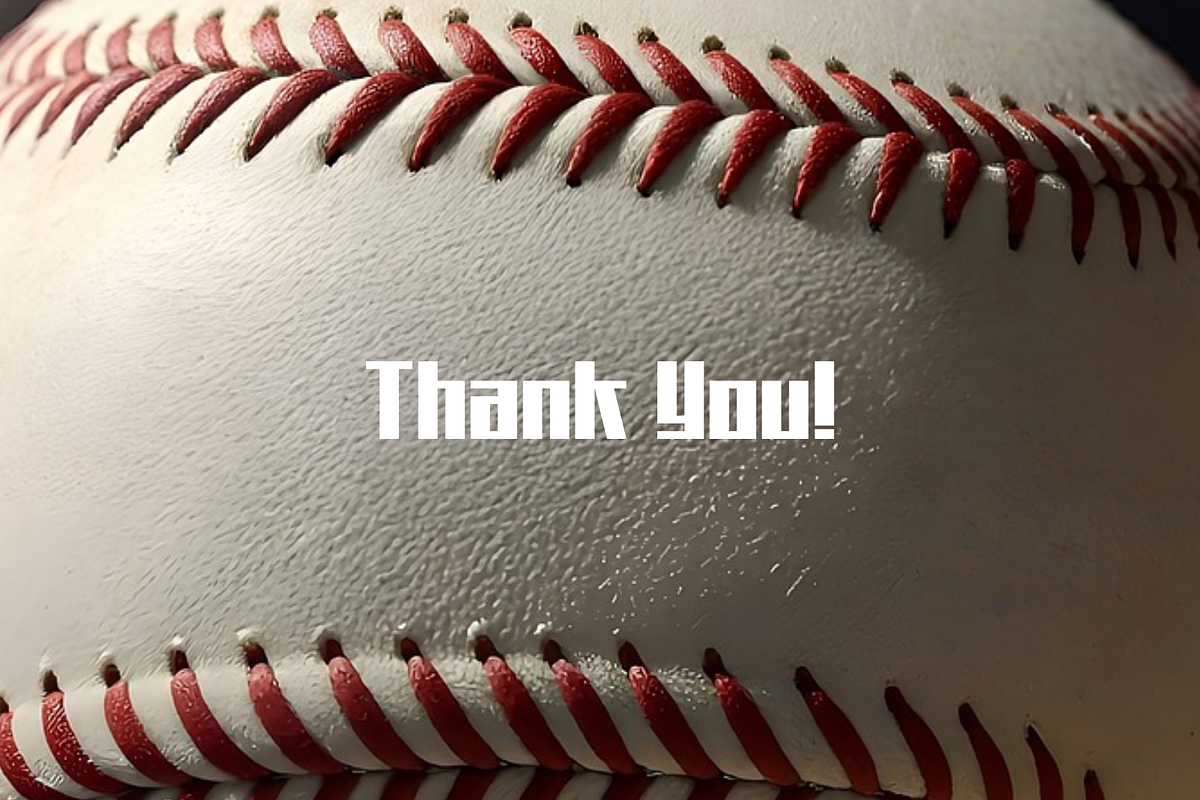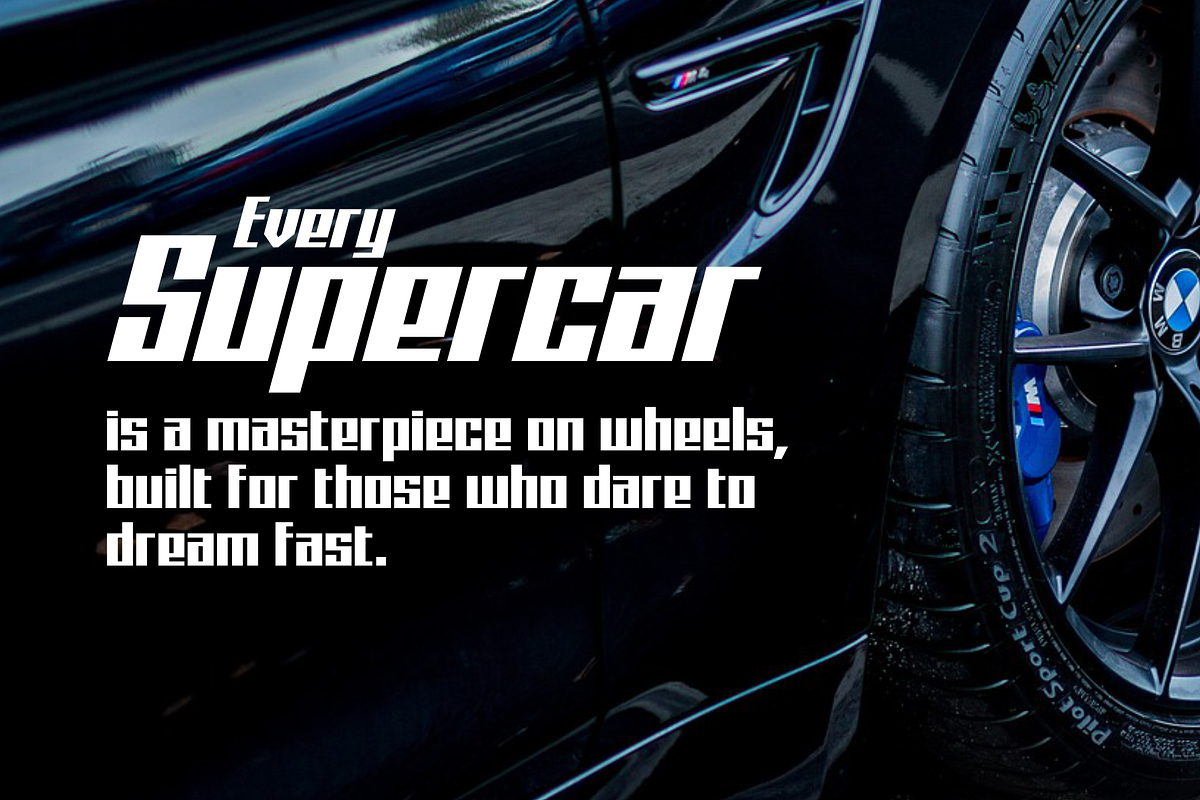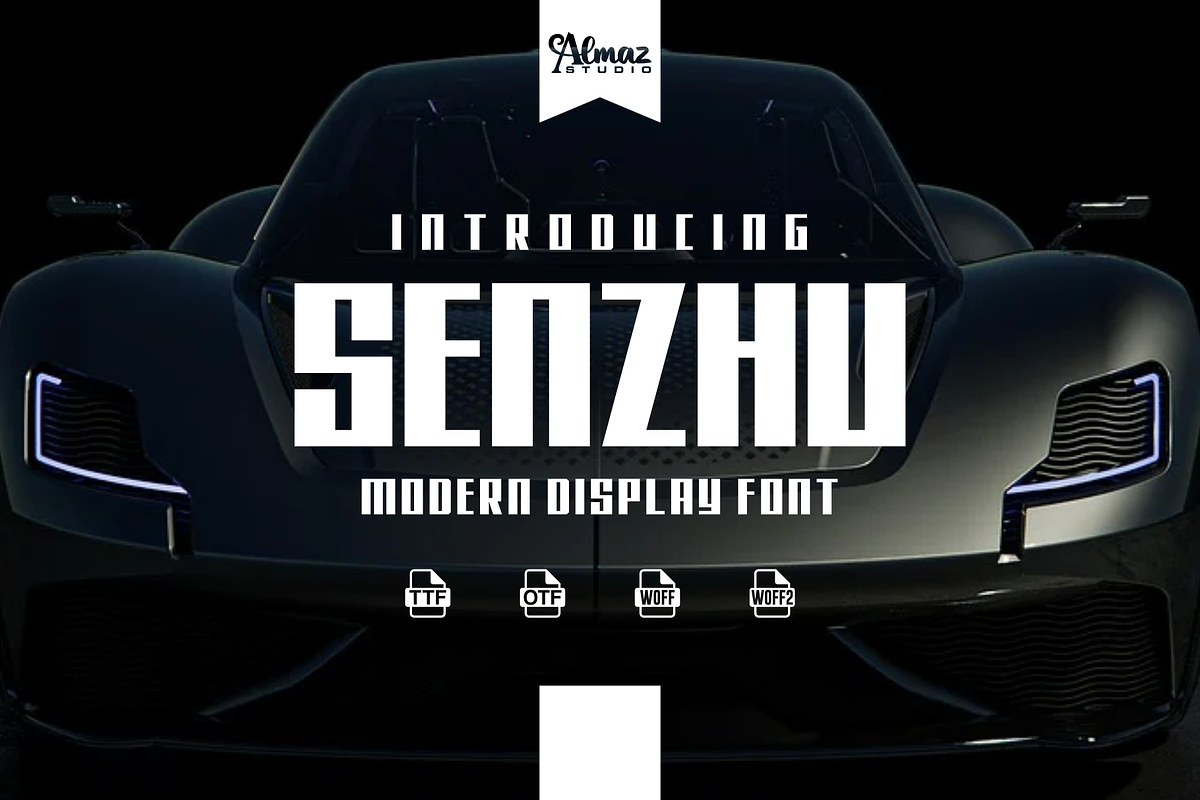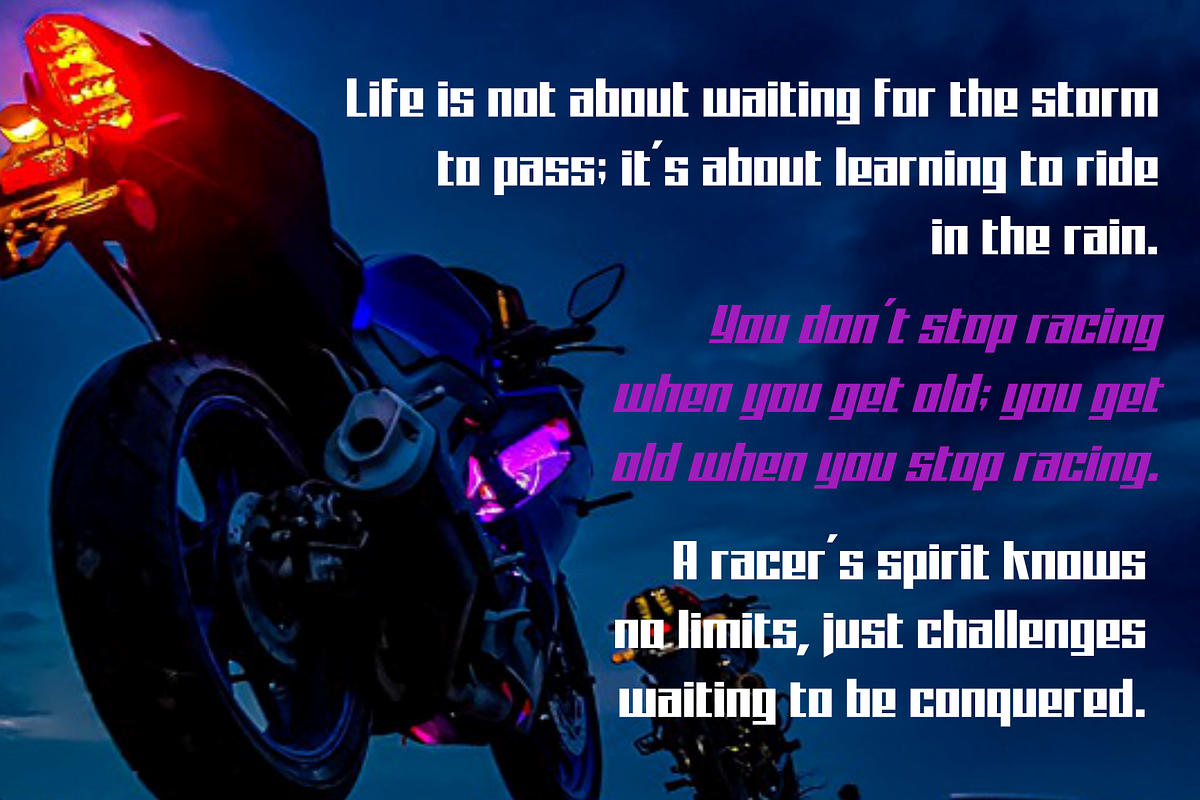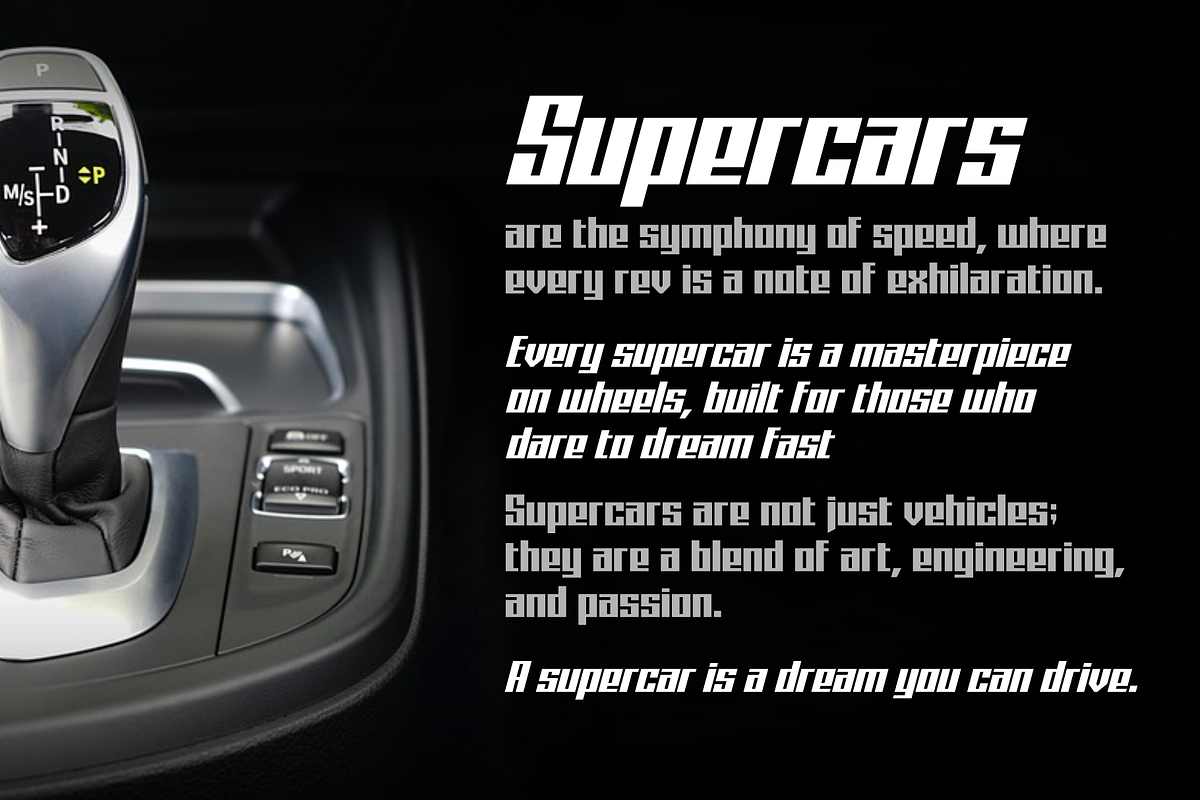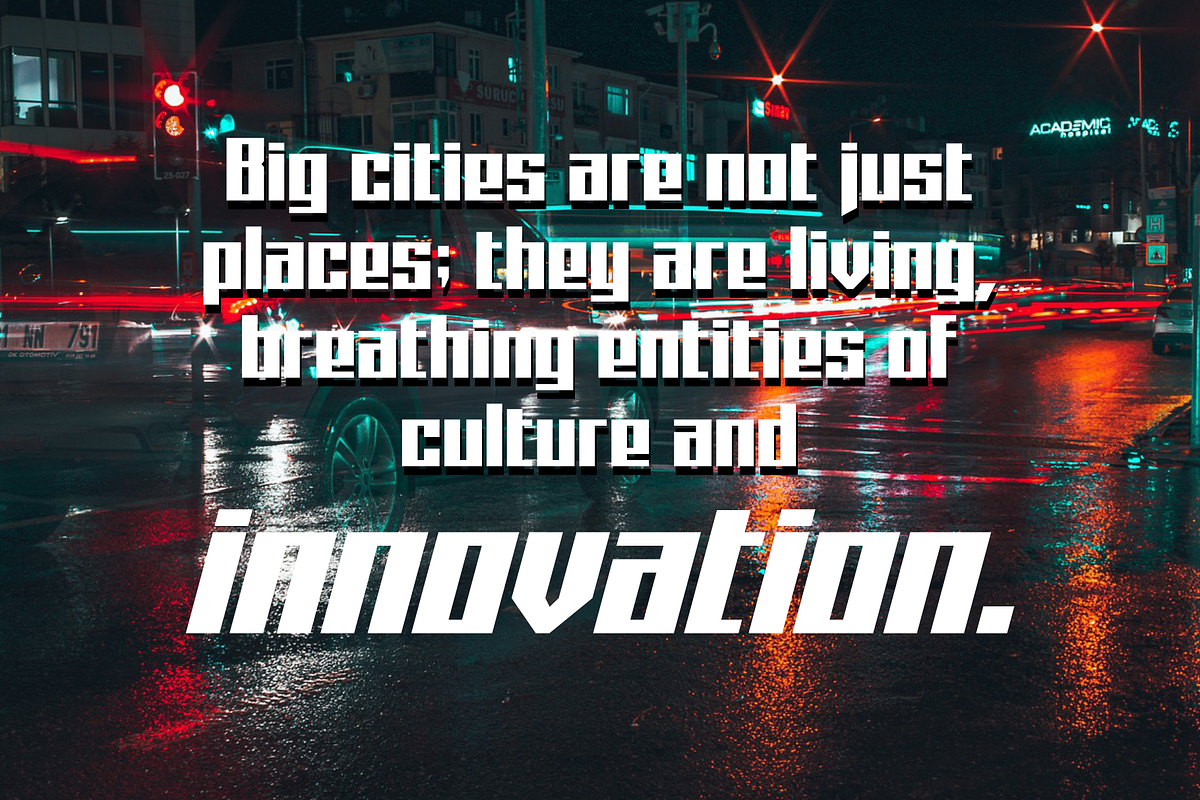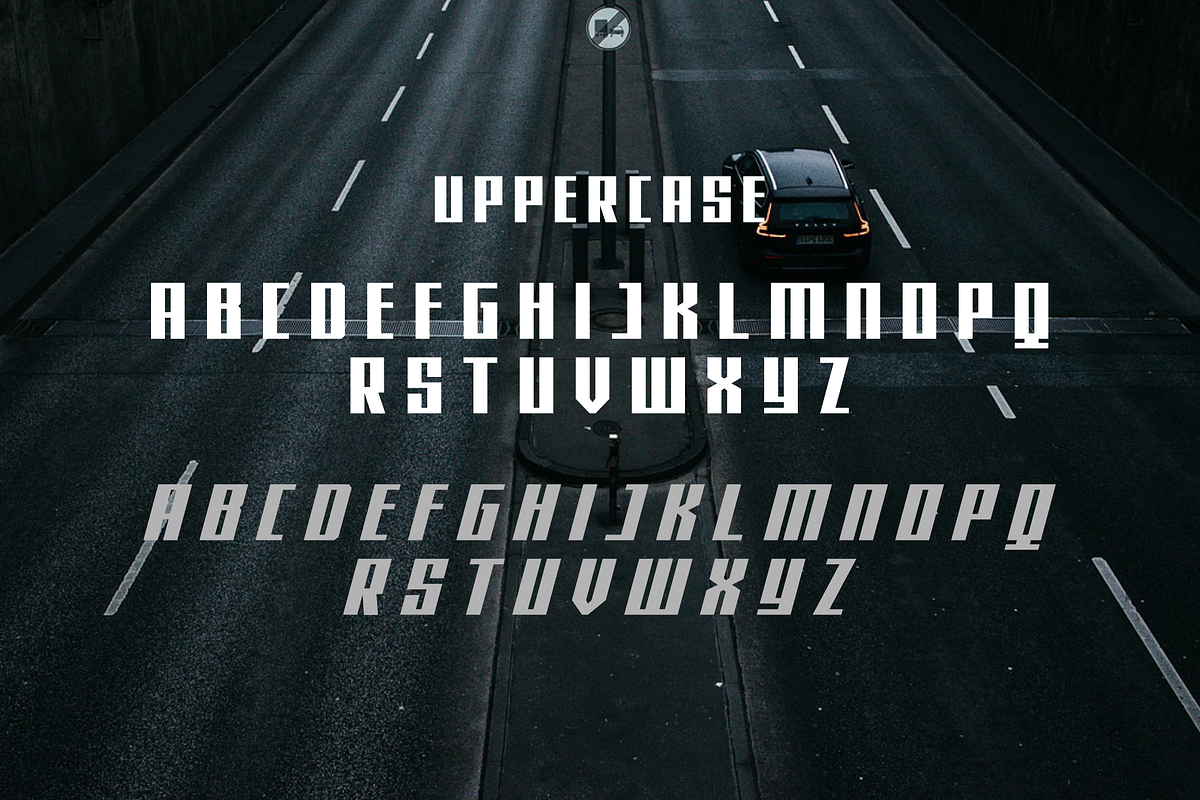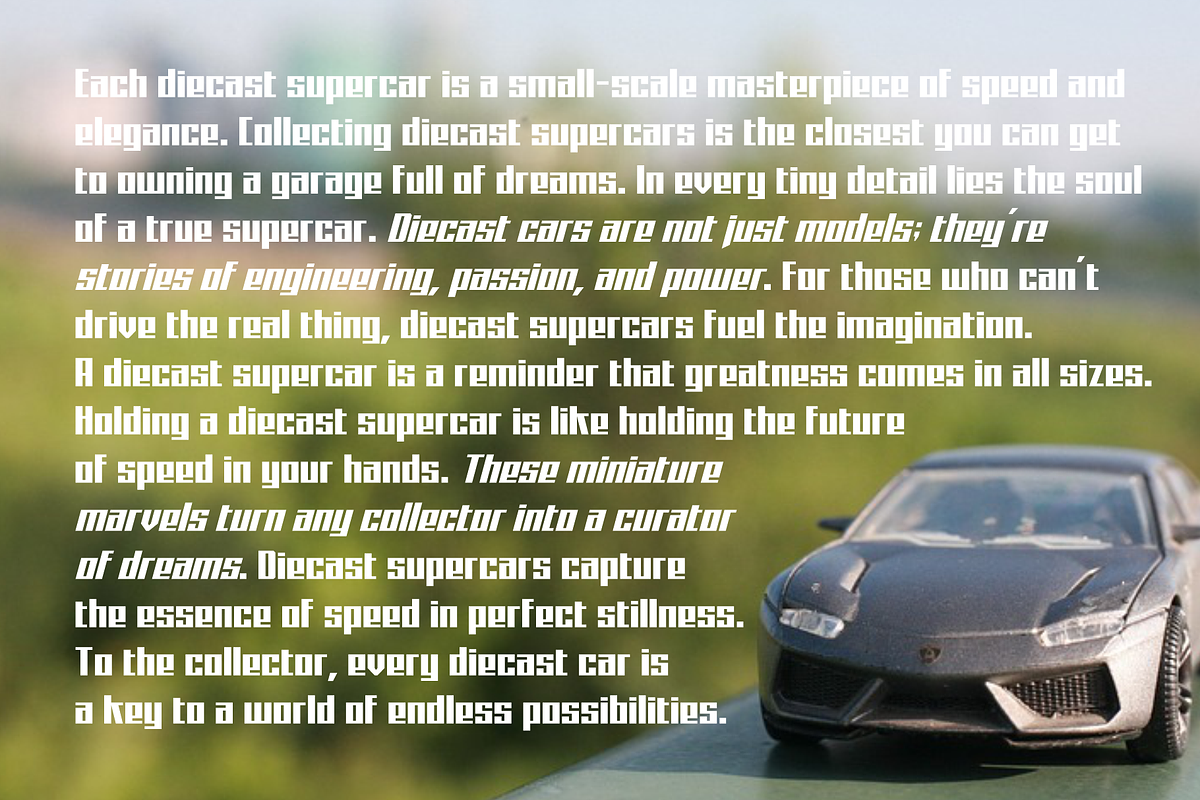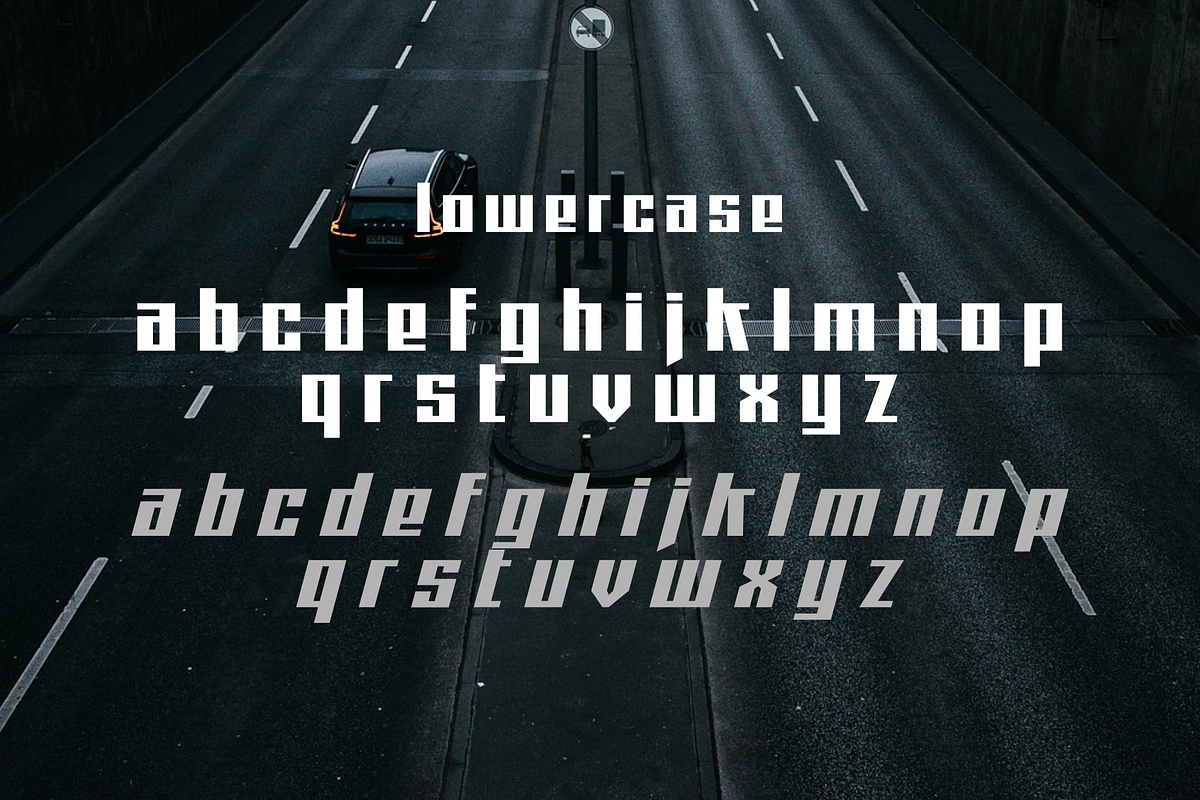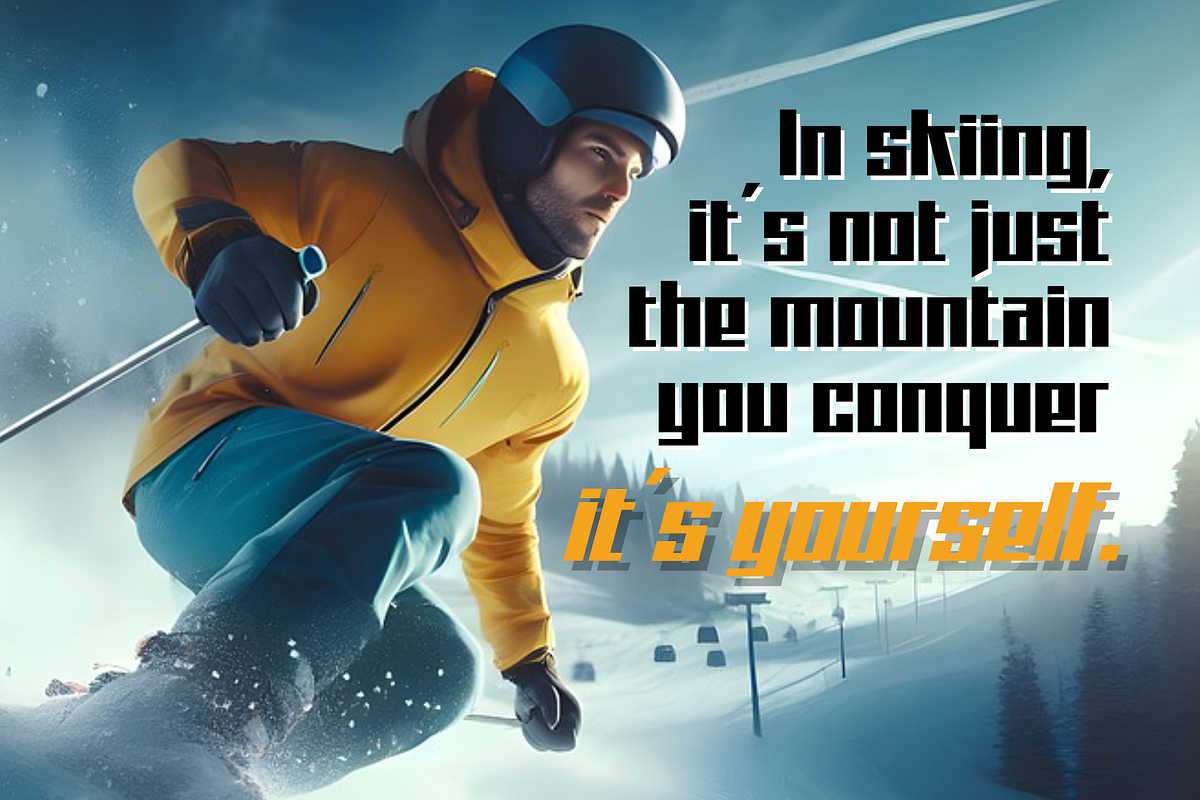
Senzhu
Senzhu is a bold and modern display font designed for maximum impact. With its tall, sharp-edged letterforms and strong geometric presence, Senzhu commands attention in every design. Inspired by speed, power, and futuristic aesthetics, this font is perfect for sports branding, automotive designs, tech projects, gaming titles, and any visual work that needs a sleek, cutting-edge feel. Senzhu ensures crisp, high-quality rendering across all digital and print platforms. Bring a sense of strength, speed, and modern sophistication to your projects with Senzhu.